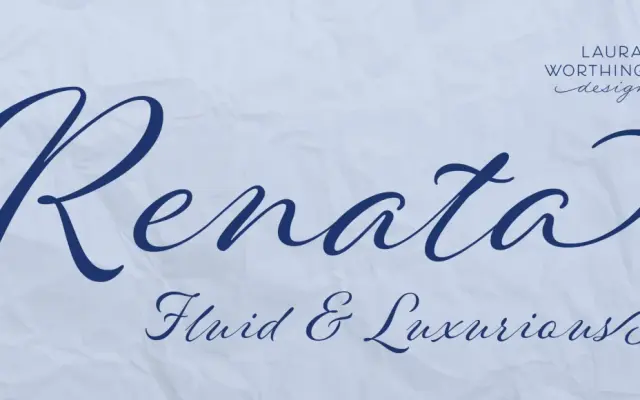
Renata
A single-weight brush script with a high x-height, 119 swashes and per-letter alternates including initial, final and isolated forms for natural-looking connected lettering.
Drawn with a small brush-tipped pen, the letterforms sit between casual and upscale, with spacious connecting strokes that aid legibility at typical display sizes. Every lowercase letter ships with an alternate plus beginning, ending and isolated forms, making it well suited to wordmarks, lettered lists and phrases where letters appear detached. OpenType features are coded to work without professional design software, broadening access to the full glyph set.
Renata is a connected script drawn with a small brush-tipped pen, featuring calligraphic letterforms with beginning, ending and isolated forms, placing it firmly in the brush script subcategory.